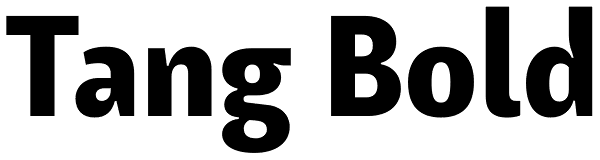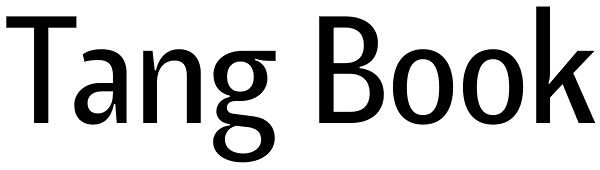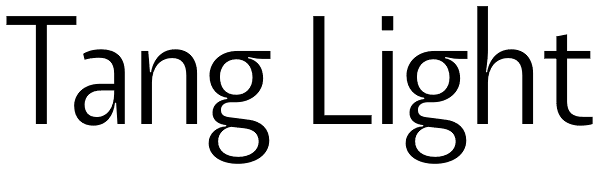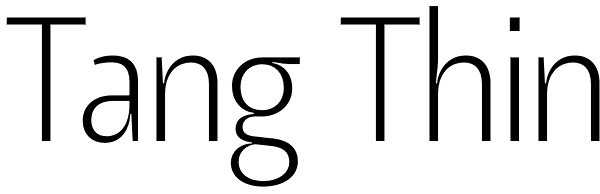
Tang
The Tang family came to be, when I started studying fonts made for use in very small point sizes, like Bell Gothic. I studied the use of ink traps and went to town with them. Instead of just using them for their purpose: trapping ink to prevent the...